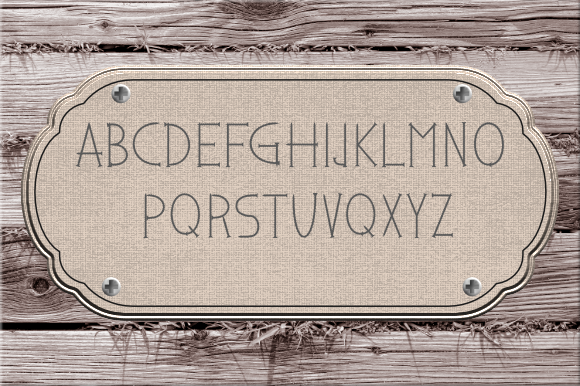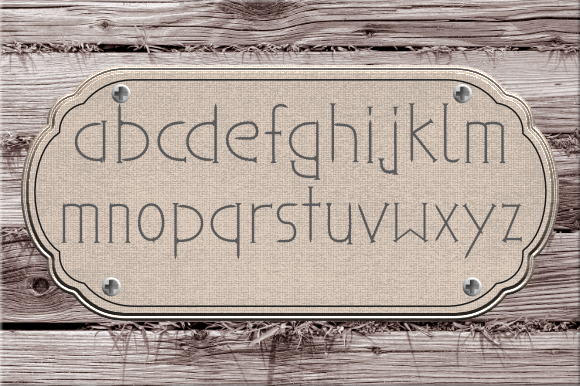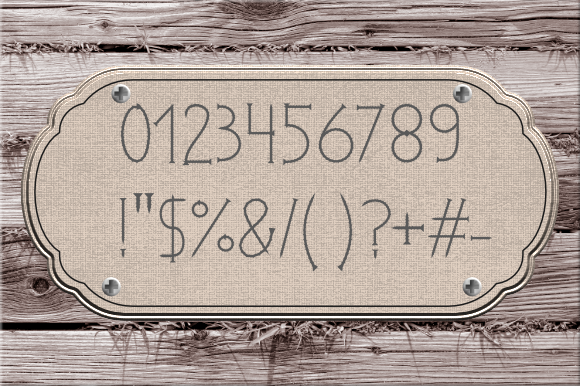
Introduction to Screws Font Font
Fonts play a crucial role in design, and the Screws Font font is a typeface that brings both character and versatility to any project. Whether you’re working on a branding project, a website, or a print design, the Screws Font font offers a unique style that can elevate your work.
Screws is a unique display font with an organic feel.
It will turn any design idea into an eye catcher .
Key Features of Screws Font Font
Why Choose Screws Font Font?
The Screws Font font is more than just a typeface – it’s a design tool that helps you communicate your message with style and clarity. Its unique character set and versatile design make it suitable for a wide range of applications, from elegant invitations to bold headlines.
With its carefully crafted letterforms and balanced proportions, the Screws Font font ensures readability and visual appeal across all mediums.
What makes Screws Font font special?
The Screws Font font stands out with its unique design, exceptional readability, and versatility across various design applications.